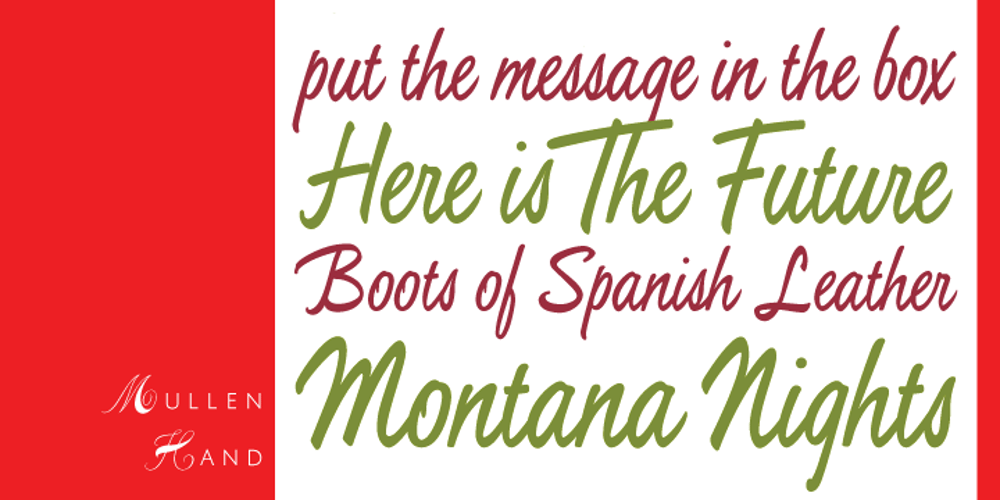
Mullen Hand Font Family was designed by Rebecca Alaccari, Jerry Mullen and published by Canada Type. Mullen Hand contains 1 styles and family package options. Mullen Hand is the fresh digitization and expansion of a Jerry Mullen metal typeface called Repro, originally published by ATF in 1953. The connectivity of certain letters in the original type was limited by metal technology, but this new digital version is updated to resolve those issues with. Two- and three-letter ligatures take care of the r, s, x and z connections. These ligatures are programmed in the ‘liga’ feature of the OpenType version, so they automatically activate in programs that support advanced typography. Casual, tall, and elegantly friendly, Mullen Hand’s even strokes and confident connections embody the spirit of contentedness and reassurance sought by today’s appeal designer. It accommodates a variety of applications, from posters and signs, to book and music covers and product packaging. Mullen Hand comes in all popular formats. The TrueType and PostScript versions come with 2 fonts, one of them containing the ligatures and some alternates. The OpenType version combines both fonts into one, and includes programmed features for localization, alternation and intelligent substitution. Language support includes Western, Central and Eastern European character sets, as well as Baltic, Esperanto, Maltese, Turkish, and Celtic/Welsh languages.